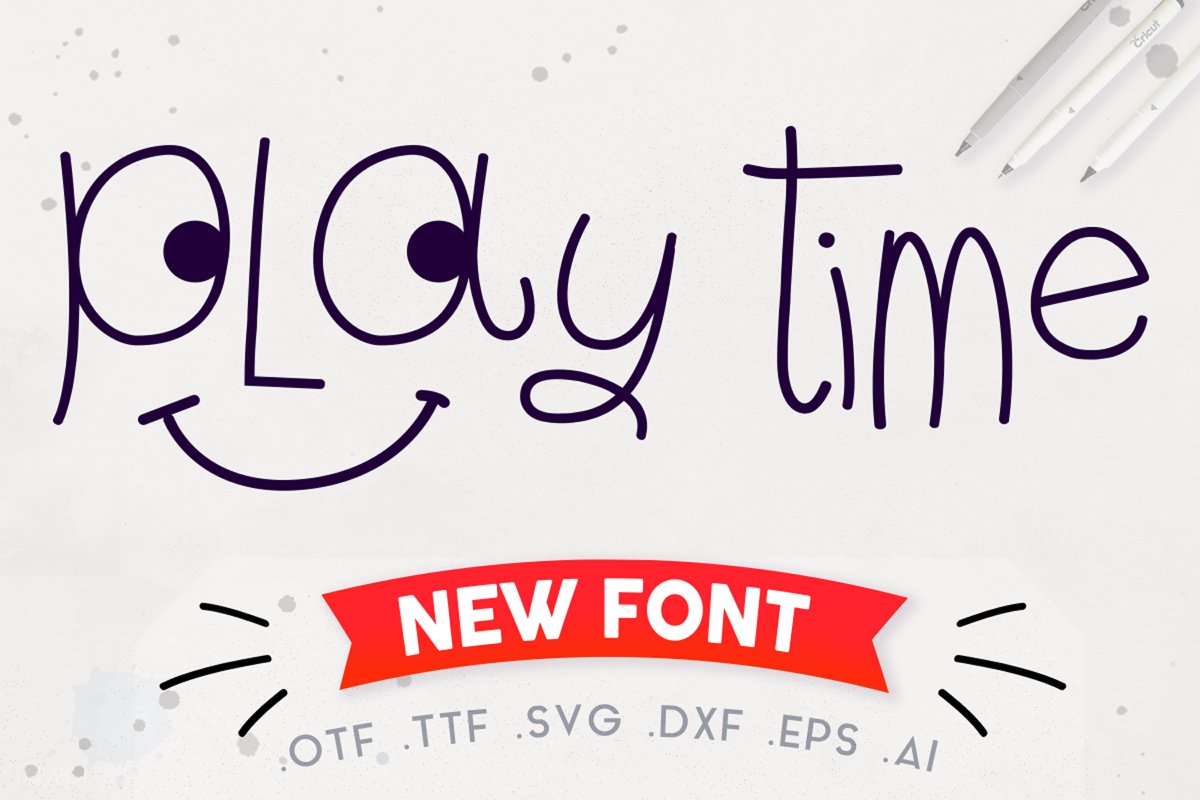
Play Time Script - A Fun and Quirky Font | Open Path Font
Play Time
Play Time is a thin, quirky font with an irregular baseline that will give your projects a playful feeling with just a couple of clicks!
Each letter has been thoroughly cleaned, reducing the number of nodes to a minimum. This means the cutting time takes much less compared to other fonts.